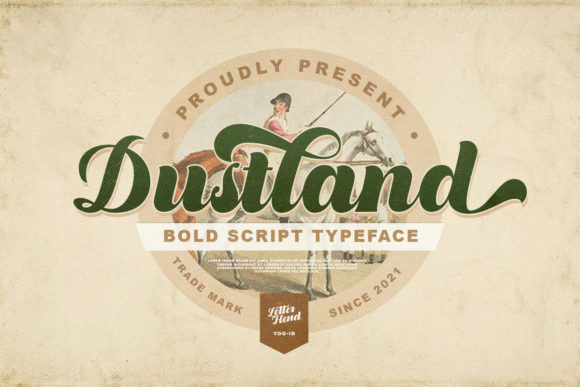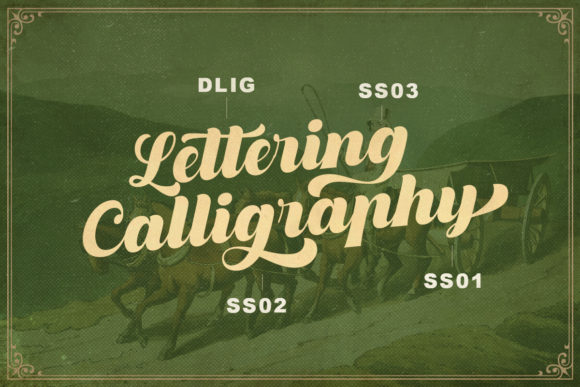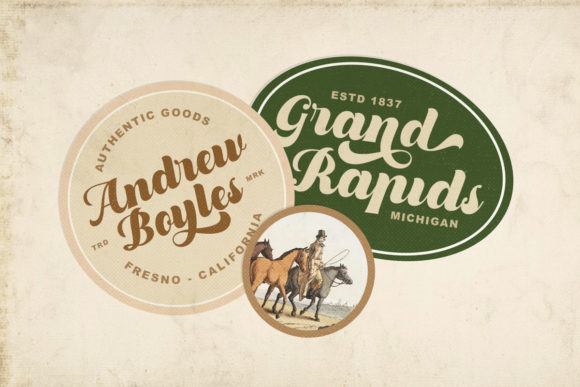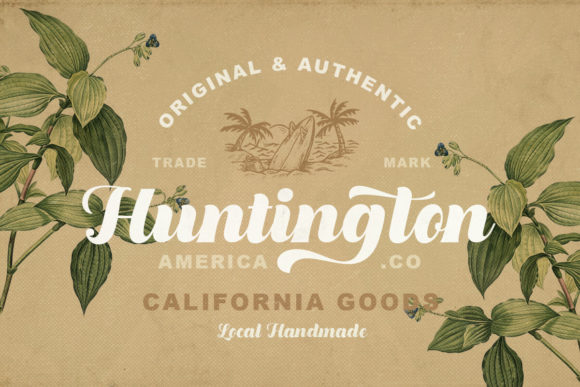
About Dustland Font
Dustland is a daring and vintage-styled handwritten font that brings a touch of style and nostalgia to your headlines and logotype projects. With its strong, confident, and dynamic appearance, this font captivates attention and adds a unique character to your designs.
The vintage-inspired look of Dustland allows you to create designs with a sense of history and authenticity. Whether you’re working on branding, advertising, or any other creative project, this font injects a nostalgic vibe that resonates with viewers. Its strong and confident strokes evoke a sense of boldness and timelessness, making it perfect for designs that require a touch of vintage charm.
One of the standout features of Dustland is its ability to enhance logotype projects. The font’s bold and dynamic nature gives your brand identity a strong and memorable presence. Whether you’re creating a logo for a retro-themed business or aiming to add a vintage twist to a modern brand, Dustland delivers a unique and eye-catching typographic solution.
Headlines also benefit from Dustland’s daring and stylish touch. The font’s strong and confident appearance demands attention, making your headlines stand out and leave a lasting impression. Whether you’re designing for print or digital media, Dustland adds a sense of character and personality to your headlines.
Moreover, Dustland’s vintage style and boldness make it well-suited for various design projects that require a unique and nostalgic touch. It can be used for posters, album covers, packaging, apparel designs, and more. The font’s dynamic and strong nature allows it to seamlessly blend into different design styles and themes, adding a touch of authenticity and character.
In summary, Dustland is a daring and vintage-styled handwritten font that brings a stylish touch and nostalgic character to your headlines and logotype projects. Its strong, confident, and dynamic appearance adds a unique flair to your designs, evoking a sense of nostalgia and authenticity. Whether you’re working on branding, advertising, or other creative endeavors, Dustland allows you to create designs that stand out and leave a lasting impression.